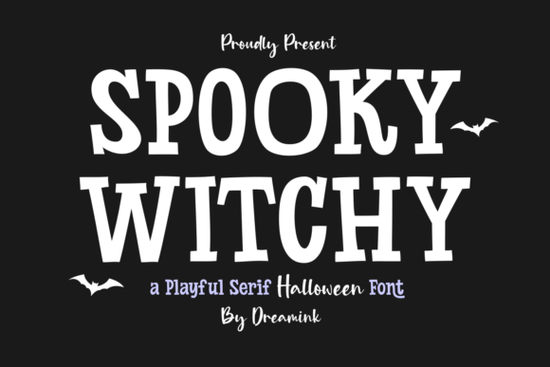
If you're looking for a font that captures the playful mystery of Halloween without veering into outright horror, Spooky Witchy Font offers just the right blend of charm and whimsy. Designed with flowing serifs, gentle curves, and a slightly off-kilter elegance, it feels like it stepped out of an old storybook filled with moonlit spells and autumn festivals. Whether you’re designing party invites, seasonal merchandise, or children’s illustrations, this typeface adds character without overwhelming your layout.
What makes Spooky Witchy work for seasonal and everyday projects?
Unlike fonts that lean heavily into scary aesthetics think jagged edges or dripping letters Spooky Witchy balances its eerie inspiration with warmth and approachability. Its serif structure gives it classic readability, while the subtle quirks in letterforms (like the looped “g” or the tilted “y”) hint at magic and mischief. This duality makes it surprisingly versatile:
- Seasonal printables: From pumpkin-carving guides to trick-or-treat tags, it adds festive flair without limiting reuse.
- Kid-friendly designs: The friendly eccentricity works well in illustrated books or classroom decor.
- Branded merchandise: Think witch-themed candles, apothecary labels, or cozy autumn apparel the font feels intentional, not generic.
- Digital content: Social banners, email headers, or blog graphics benefit from its eye-catching yet legible style.
Because it’s rooted in traditional serif design, it pairs easily with cleaner sans-serifs for body text or supporting elements. That means you don’t have to overhaul your entire layout to make it work.
How does it compare to other serif fonts for themed design?
Each of these fonts serves a distinct creative purpose, but Spooky Witchy stands out when your project calls for lighthearted enchantment especially around fall and Halloween.
Who should use this font?
This typeface shines for creators who want seasonal authenticity without sacrificing usability:
- Print-on-demand sellers crafting mugs, totes, or wall art with autumn or witchy themes.
- Small business owners running seasonal pop-ups, potion shops, or harvest markets.
- Graphic designers building campaign assets for October events or family-friendly haunted attractions.
- Crafters and educators making printable games, classroom decorations, or storytime handouts.
It’s also a smart choice if you’re building a reusable template library since its tone isn’t overly dark, you can repurpose designs beyond Halloween (think harvest festivals, fairy tales, or mystical wellness brands).
Tips for using Spooky Witchy effectively
To get the most out of this font, keep these practical pointers in mind:
- Use it for headlines or short phrases. Its decorative nature works best in display sizes avoid long paragraphs.
- Pair it thoughtfully. Combine with simple sans-serifs like Montserrat or Lato for contrast and clarity.
- Play with color. Deep purples, mossy greens, or burnt oranges enhance its autumnal vibe, but soft creams or slate grays can tone down the spookiness for year-round use.
And remember: less is often more. One well-placed line of Spooky Witchy can set the mood better than filling every corner with it.
- Is my project aligned with whimsical, folkloric, or seasonal themes?
- Do I need a display font not body text?
- Will this complement my existing brand or design system?
If yes, Spooky Witchy could be the subtle spell your next creation needs.